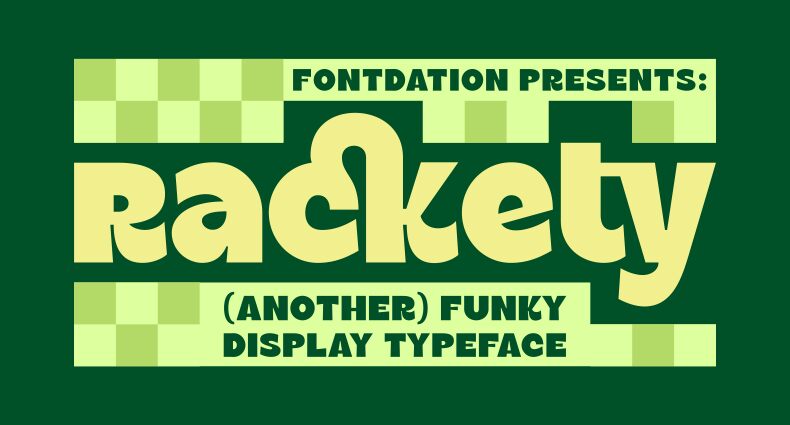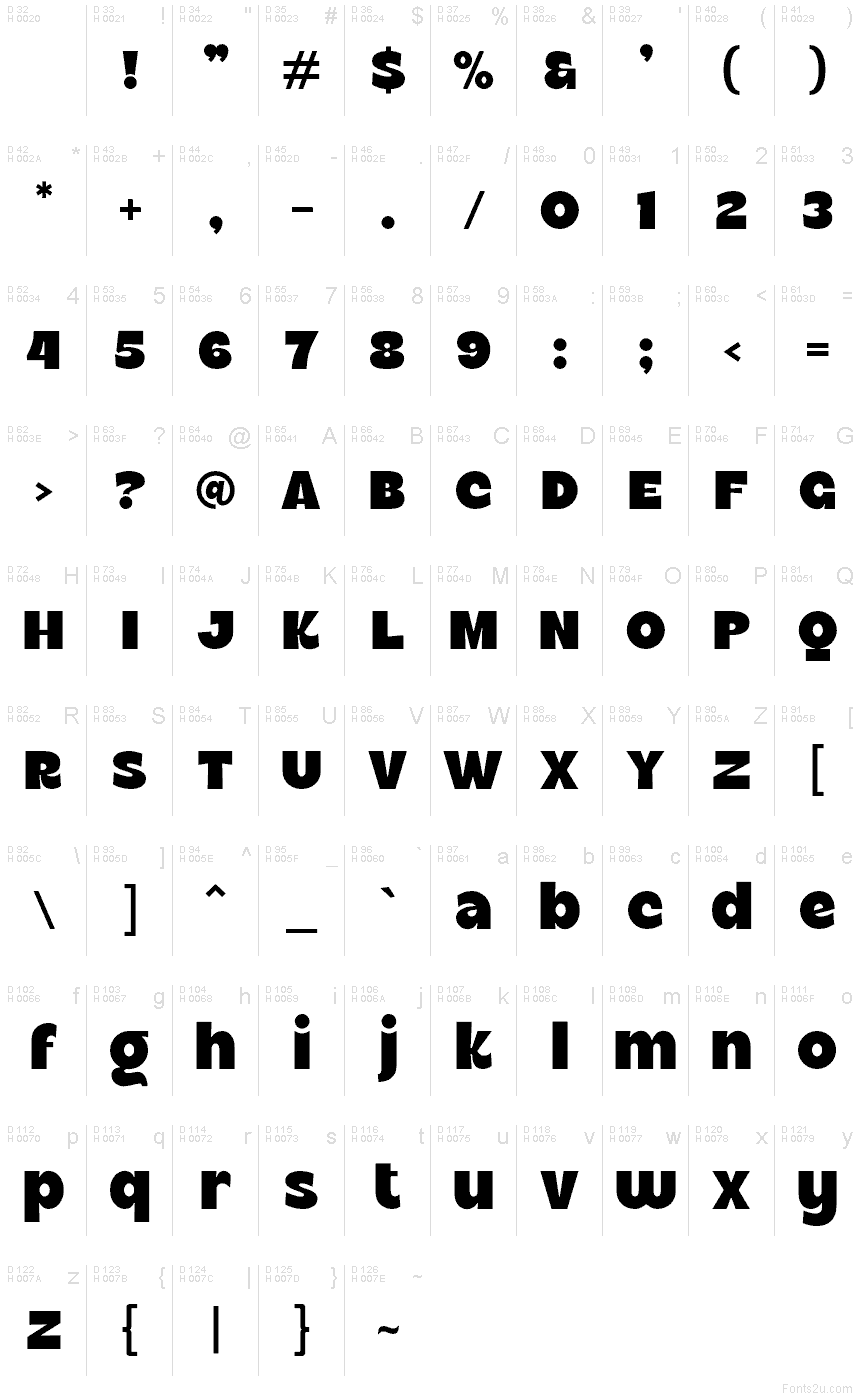
Rackety font by Twicolabs Fontdation is a free playful rounded sans typeface. Big, pillowy curves and chunky strokes give it a cheerful, bouncy feel, while the tight rhythm keeps words looking solid and punchy. It reads like foam letters cut clean with a knife-friendly, loud, and instantly legible at a glance.
Using Rackety, headlines snap to attention on kids’ branding, snack packaging, toy logos, party posters, stickers, and YouTube thumbnails. The generous weight and soft corners make color pop and keep messages approachable without losing impact. For balance, pair this free font with a simple, neutral sans for small text, and set Rackety large with slightly tight letterspacing to amplify its bold, happy energy.